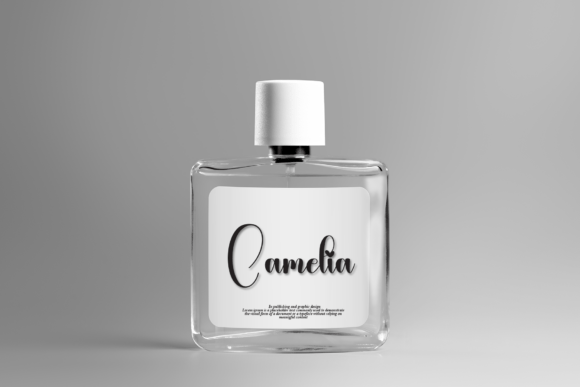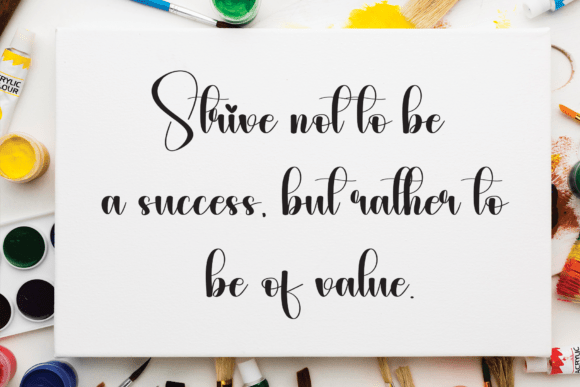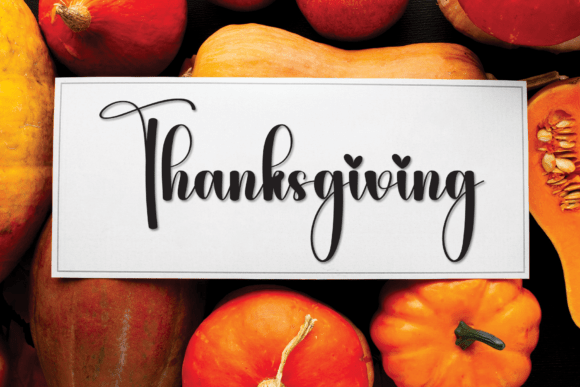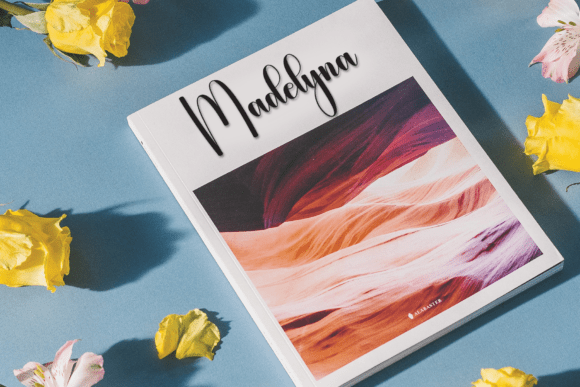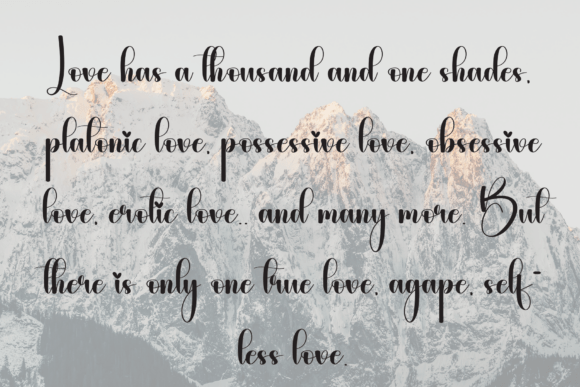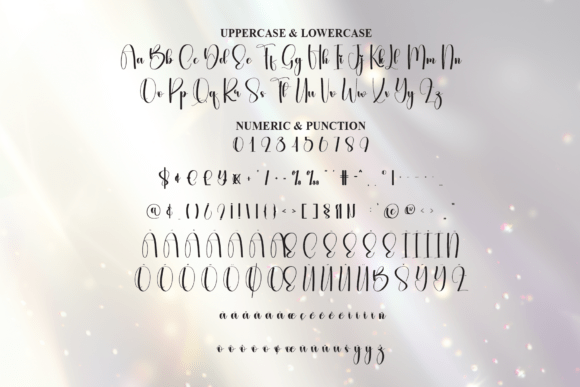
Introducing Brightnes Font: The Ultimate Playful Handwritten Display Font
Are you looking for a font that can add a touch of warmth and playfulness to your designs? Look no further than Brightnes Font, a charmingly playful handwritten display font that is sure to envelop your projects with a delightful warmth. With its sweet and friendly demeanour, this font perfectly enhances anything from wedding invitations and greeting cards to any graphic design project that begs for a hint of merriment.
The Perfect Blend of Whimsy and Elegance
Brightnes Font is brimming with cuteness and bubbly charm, making it the perfect element of creativity to inject a dash of fun into your designs. This font is designed to bring a sense of joy and playfulness to your projects, making it ideal for designers and crafters who want to create unique and eye-catching designs. Whether you’re creating wedding invitations, greeting cards, or social media graphics, Brightnes Font is sure to make your designs stand out.
Unique Expressive Possibilities
With Brightnes Font, you can uncover a world of unique expressive possibilities. This font is designed to be versatile and can be used in a variety of design projects, from formal to informal. The font’s playful and whimsical nature makes it perfect for designs that require a touch of personality and charm. Whether you’re looking to create a bold statement or a subtle hint of playfulness, Brightnes Font is the perfect choice.
Make Every Stroke of Your Design Count
With Brightnes Font, you can make every stroke of your design count. This font is designed to be easy to use and customizable, allowing you to create unique and personalized designs that reflect your style and creativity. The font’s sweet and friendly demeanour makes it perfect for designs that require a touch of warmth and personality. Whether you’re a seasoned designer or a beginner, Brightnes Font is easy to use and will help you create stunning designs in no time.
Infuse Your Designs with Irresistible Charm
Brightnes Font is the perfect way to infuse your designs with an irresistible blend of whimsy and elegance. This font is designed to be eye-catching and engaging, making it perfect for designs that require a touch of personality and charm. Whether you’re creating social media graphics, blog posts, or marketing materials, Brightnes Font is sure to make your designs stand out. The font’s playful and whimsical nature makes it perfect for designers and crafters who want to create unique and eye-catching designs that capture the attention of their audience.
Brightnes Font is perfect for designers and crafters who want to add a touch of playfulness and whimsy to their designs. This font is ideal for:
- Wedding invitations and greeting cards
- Marketing materials and advertisements
- Graphic design projects that require a touch of personality and charm
Key Features of Brightnes Font
Here are some of the key features of Brightnes Font:
- Charmingly playful handwritten display font
- Sweet and friendly demeanour
- Brimming with cuteness and bubbly charm
- Perfect for designs that require a touch of whimsy and elegance
- Easy to use and customizable
- Versatile and can be used in a variety of design projects
In conclusion, Brightnes Font is the ultimate playful handwritten display font that is sure to envelop your projects with a delightful warmth. With its sweet and friendly demeanour, this font perfectly enhances anything from wedding invitations and greeting cards to any graphic design project that begs for a hint of merriment. Whether you’re a designer or crafter, Brightnes Font is the perfect choice for anyone looking to add a touch of playfulness and whimsy to their designs. So why wait? Download Brightnes Font today and start creating stunning designs that capture the attention of your audience!